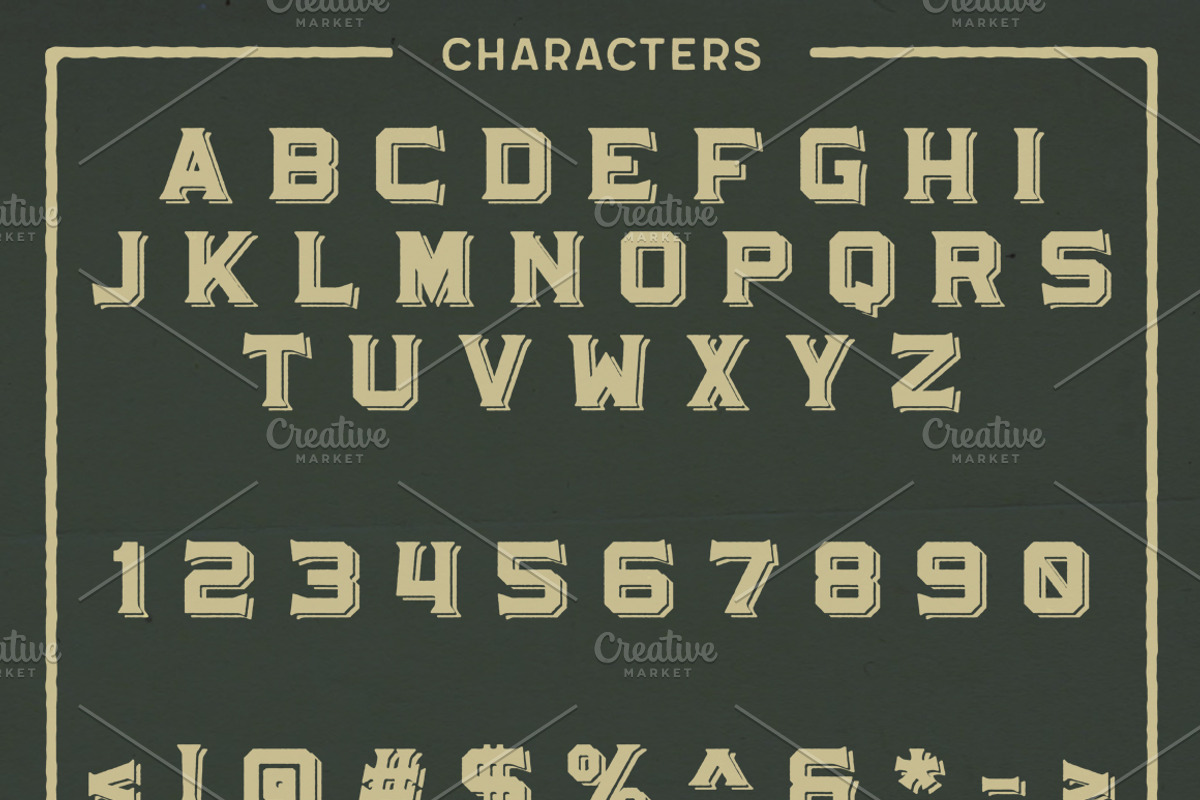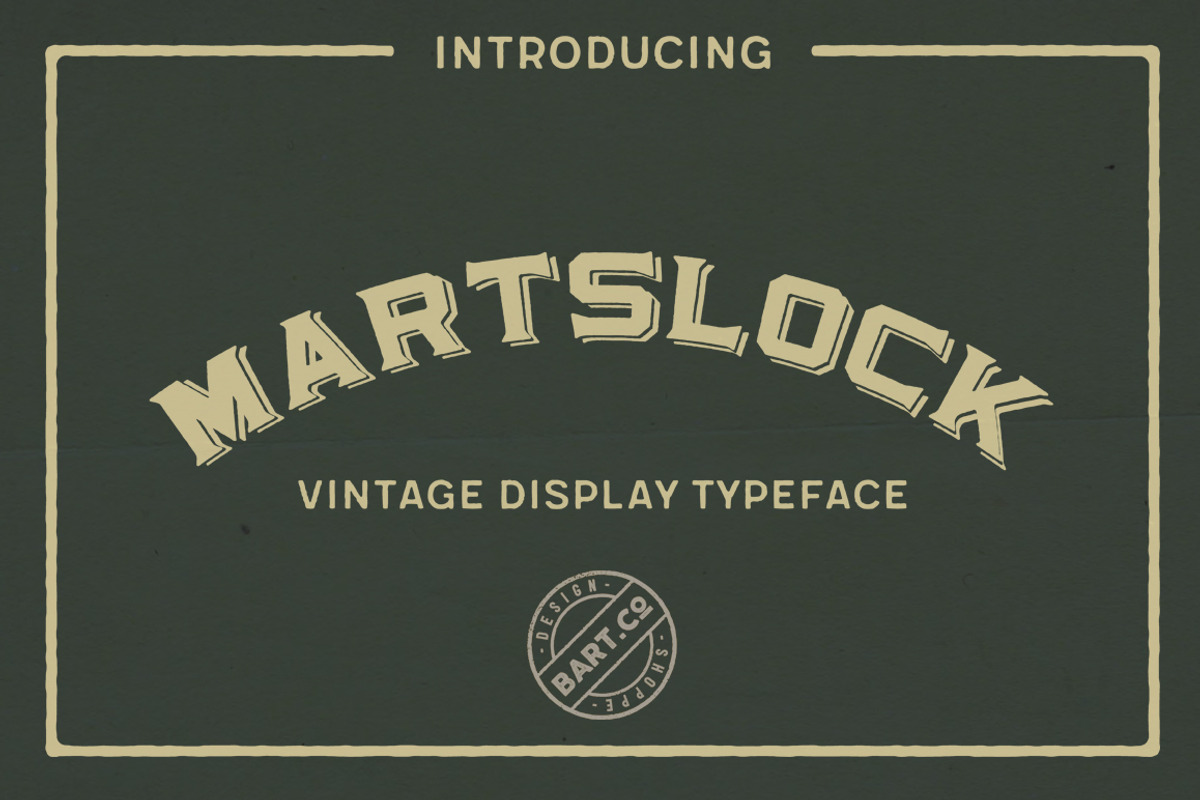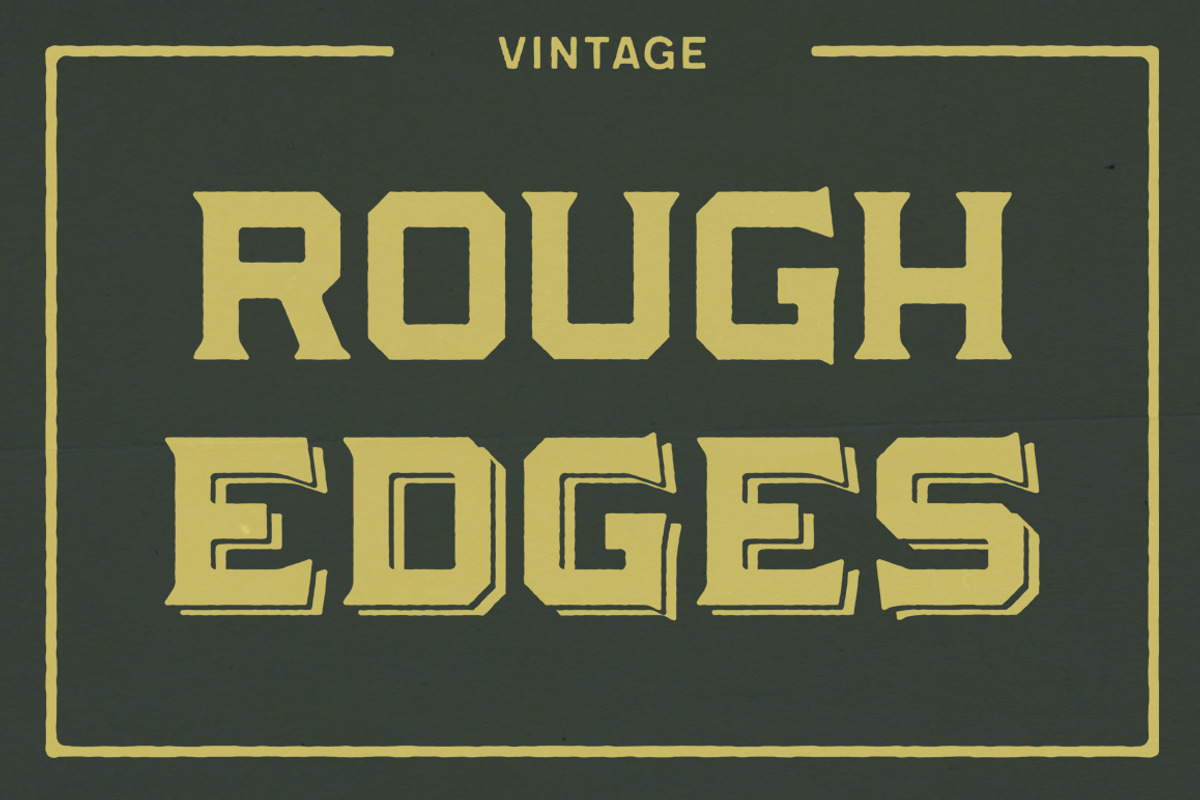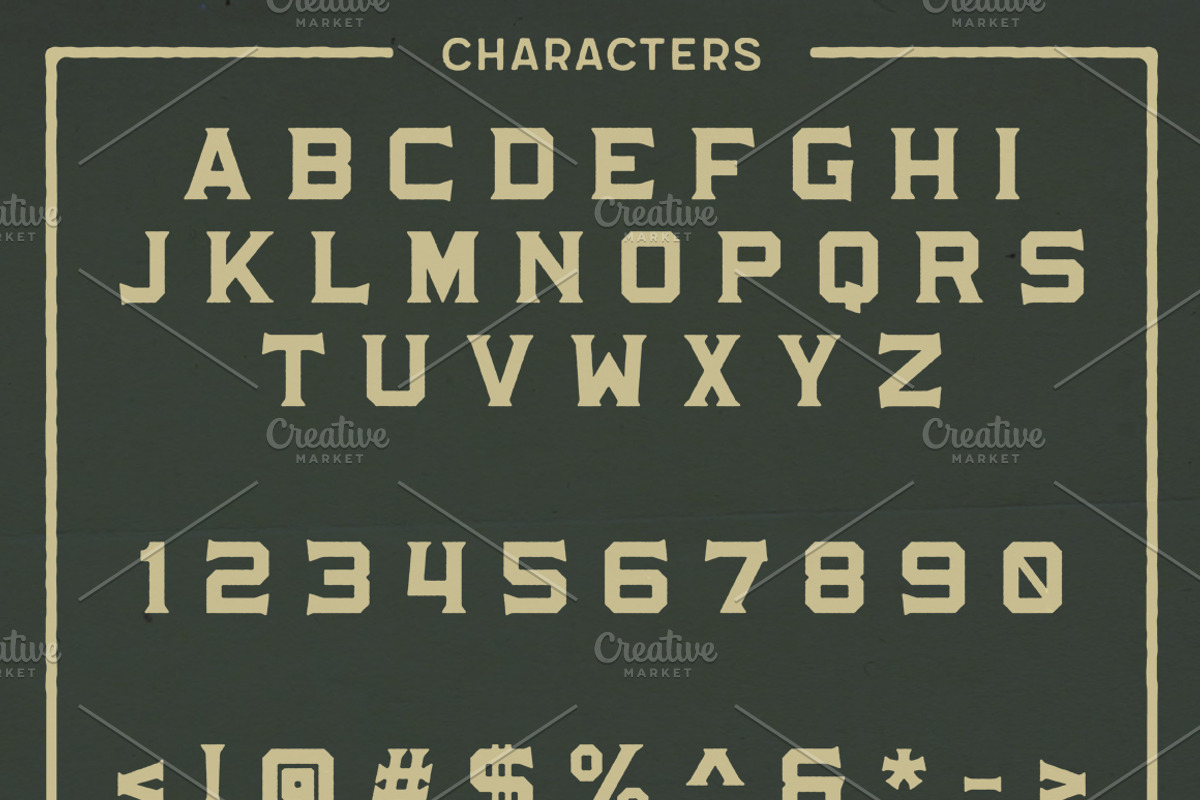
Martslock Typeface
Martslock Display is a vintage display serif font inspired by labels and signboards from mid twentieth century. This font is great for vintage style designs - logos, posters, barndings, labels, signs and much more.
Martslock Display Rough
Martslock Display Shadow
Fonts contains only basic western alphabet, numerics and punctuation.